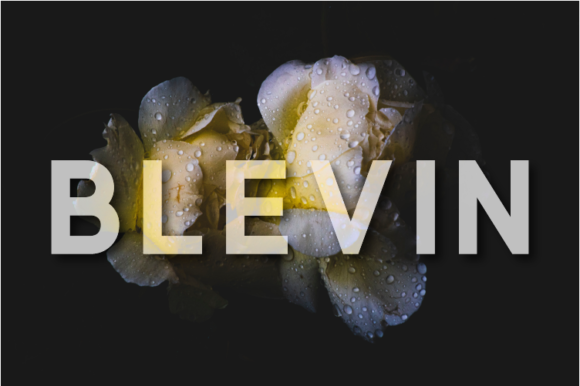
The Blevin Font: A Modern Sans Serif Game-Changer
I’ll never forget the struggle I faced while working on a branding project for a trendy new cafe. My client wanted a font that was modern, elegant, and highly legible. I scoured the internet, tried out countless fonts, but nothing seemed to fit the bill. That was until I stumbled upon the Blevin font. With its sleek lines and beautiful arrangement of letters, it was love at first sight! In this article, I’ll share my experience with the Blevin font, its features, and how to make the most of it in your designs.
• ✨ Modern and Fresh Look: Blevin has a distinctly modern feel that makes it perfect for contemporary designs.
• ✅ High Legibility: The font’s clean lines and well-spaced letters ensure that it remains readable even at small sizes.
• 💼 Versatility: Blevin works beautifully in both formal and informal designs, making it a versatile addition to your font library.
While Blevin is an excellent font, it’s not without its quirks. For instance:
• 🤔 Limited Extras: Blevin doesn’t come with a wide range of extra glyphs or OpenType features, which might limit its use in certain projects.
• ⚠️ Not Ideal for Body Text: While it’s legible, Blevin might not be the best choice for long-form body text due to its modern, somewhat minimalist design.
The Design Story Behind Blevin
Blevin was created with the goal of providing a clean, modern sans serif that could be used across various mediums. The designer aimed to craft a font that was both beautiful and functional, with a focus on readability and versatility.
Q: Is Blevin suitable for body text?
A: While Blevin is legible, it might not be the best choice for long-form body text due to its modern, somewhat minimalist design.
Q: Does Blevin support OpenType features?
A: Blevin has basic support for OpenType features. For advanced typographic control, explore the font options in compatible design software.